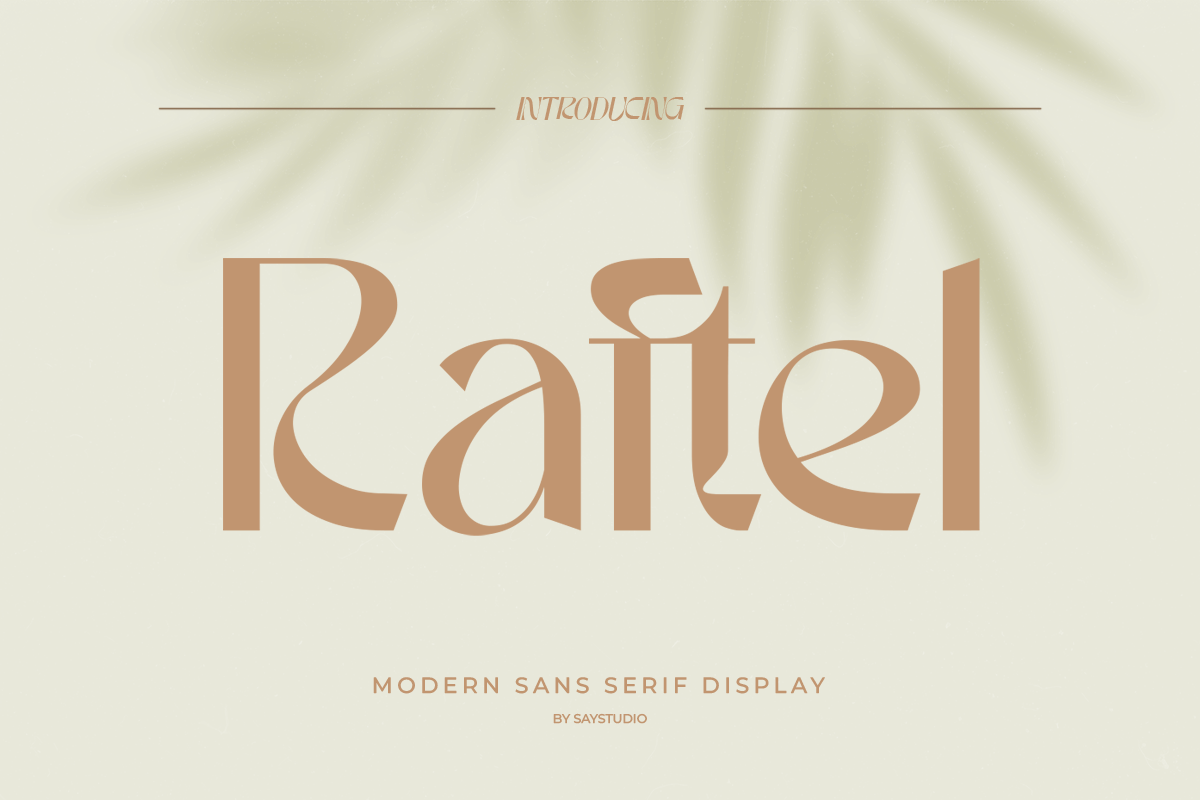
Raftel Font Free Download is a bold and modern typeface designed to make a statement. With its clean lines and unique letterforms, Raftel is perfect for headlines, logos, branding, posters, and more. Its contemporary design ensures that your message stands out with clarity and style, making it ideal for both digital and print applications.